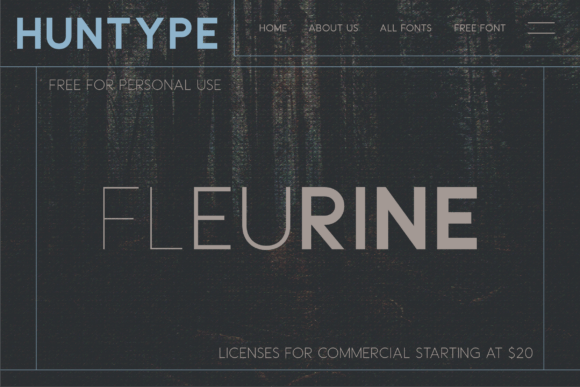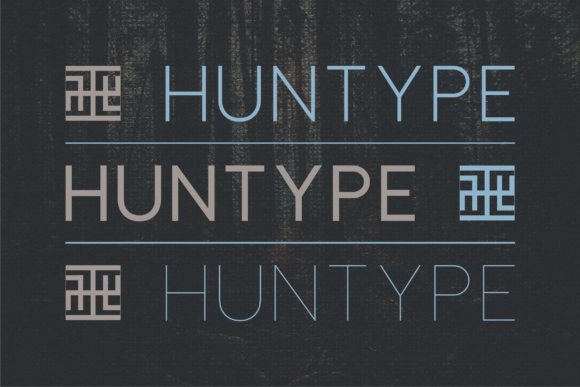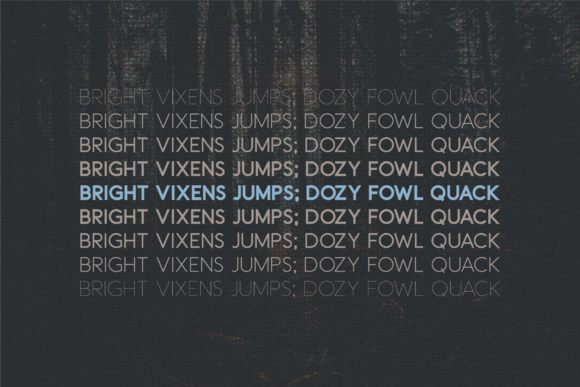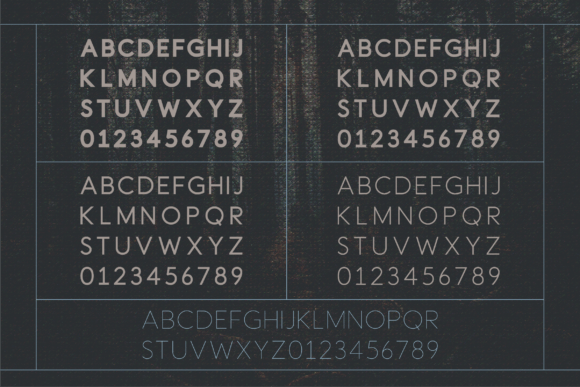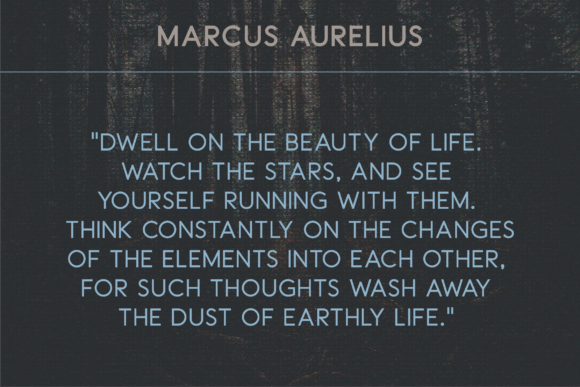
Introducing Fleurine Sans Serif Font Family: Elevate Your Designs with Elegance and Versatility
In the world of typography, a font can make all the difference in the success of a design project. A well-crafted font can elevate your creations, convey your message with clarity, and leave a lasting impression on your audience. This is where Fleurine Sans Serif Font Family comes into play, a meticulously designed font family that embodies elegance, modernity, and versatility. With its five distinct weights, Fleurine Font Family offers a wide range of creative possibilities, making it an ideal choice for designers and content creators alike.
A Font Family that Exudes Elegance and Sophistication
Fleurine Font Family is a masterfully crafted sans serif font that boasts a seamless blend of sophistication and contemporary style. Its sleek lines, precise curves, and carefully considered letterforms make it a perfect choice for projects that demand a touch of elegance and refinement. Whether you’re designing a luxury brand, a high-end product, or a sophisticated digital platform, Fleurine Font Family is sure to impress.
Five Distinct Weights for Endless Creative Possibilities
One of the standout features of Fleurine Font Family is its comprehensive range of five distinct weights: THIN, LIGHT, REGULAR, BOLD, and BLACK. This versatility allows designers to experiment with different styles and tones, ensuring that their projects can adapt to various contexts and applications. Whether you’re aiming for a subtle and delicate touch or a bold and impactful statement, Fleurine Font Family provides the perfect solution.
THIN: For a Subtle and Delicate Touch
The THIN weight of Fleurine Font Family is perfect for designs that require a subtle and delicate touch. Its slender lines and refined letterforms create a sense of airiness and elegance, making it ideal for projects such as luxury branding, high-end packaging, and sophisticated digital platforms.
LIGHT: For a Soft and Sophisticated Look
The LIGHT weight of Fleurine Font Family offers a soft and sophisticated look that’s perfect for designs that require a gentle yet refined aesthetic. Its subtle curves and precise lines create a sense of balance and harmony, making it suitable for projects such as editorial design, digital interfaces, and branding.
REGULAR: For a Balanced and Versatile Style
The REGULAR weight of Fleurine Font Family serves as the perfect middle ground, offering a balanced and versatile style that’s suitable for a wide range of design applications. Its clear lines, precise curves, and carefully considered letterforms make it an excellent choice for body text, headings, and titles.
BOLD: For a Strong and Impactful Statement
The BOLD weight of Fleurine Font Family is designed to make a statement. Its sturdy lines and confident letterforms create a sense of strength and authority, making it perfect for projects that require a bold and impactful aesthetic. Use it for headings, titles, and emphasis to add a touch of drama and flair to your designs.
BLACK: For a Dramatic and Powerful Look
The BLACK weight of Fleurine Font Family is the most dramatic and powerful of the range. Its thick lines and robust letterforms create a sense of intensity and grandeur, making it ideal for projects that require a bold and commanding presence. Use it for large-scale titles, headings, and emphasis to add a touch of drama and sophistication to your designs.
Why Choose Fleurine Font Family?
So, why should you choose Fleurine Font Family for your design projects? Here are just a few reasons:
- Versatility: With five distinct weights, Fleurine Font Family offers a wide range of creative possibilities, making it perfect for various design applications.
- Elegance: Fleurine Font Family boasts a seamless blend of sophistication and contemporary style, making it ideal for projects that demand a touch of elegance and refinement.
- Readability: The font family’s clear lines, precise curves, and carefully considered letterforms ensure excellent readability, even at small sizes.
- Flexibility: Fleurine Font Family can be used for a wide range of design applications, from luxury branding and packaging to digital interfaces and editorial design.
In conclusion, Fleurine Sans Serif Font Family is a meticulously crafted font family that offers a perfect blend of elegance, modernity, and versatility. With its five distinct weights, Fleurine Font Family provides a wide range of creative possibilities, making it an ideal choice for designers and content creators alike. Whether you’re aiming for a subtle and delicate touch or a bold and impactful statement, Fleurine Font Family is sure to elevate your designs and leave a lasting impression on your audience.